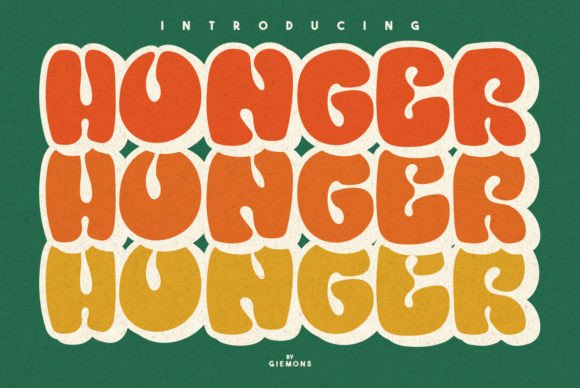
**Introducing Honger: A Bold and Groovy Retro Display Font for the Modern Age**
Get ready to transport yourself back in time with Honger, the ultimate retro display font that oozes style and personality. Inspired by the groovy 70s, this font embraces the era's bold and exuberant aesthetics, delivering a visual feast that's guaranteed to turn heads.
**A Blast from the Past with a Modern Twist**
Honger is not just a font; it's a journey through time, capturing the essence of the 70s while seamlessly blending it with contemporary design sensibilities. Its thick, rounded letterforms exude a playful charm, while the distinct 70s vibe adds a touch of nostalgia that resonates with audiences of all ages.
**Make a Statement with Honger**
Whether you're designing striking headlines, eye-catching logos, or captivating posters, Honger is your secret weapon for creating designs that demand attention. Its bold presence is perfect for grabbing eyeballs and leaving a lasting impression.
**Inject Fun and Exuberance into Your Projects**
With Honger, dull and lifeless designs are a thing of the past. This font breathes life into your creative endeavors, adding a sense of playfulness and exuberance that's sure to leave your audience grinning from ear to ear. It's the perfect font for projects that need a touch of whimsy and lightheartedness.
**Step into the Spotlight with Honger**
Unlock your inner creative genius and let Honger take center stage in your designs. Its versatility knows no bounds, making it the ideal font for a wide range of projects, from retro-inspired branding to eye-popping social media graphics. The possibilities are endless, so let your imagination run wild and create designs that stand out from the ordinary.
**Join the Retro Revolution with Honger**
Don't settle for ordinary fonts that blend into the background. Embrace the power of Honger and embark on a creative adventure that's sure to leave you feeling inspired and exhilarated. This font is more than just a design tool; it's a statement of individuality, a celebration of the past, and a gateway to a world of captivating designs.